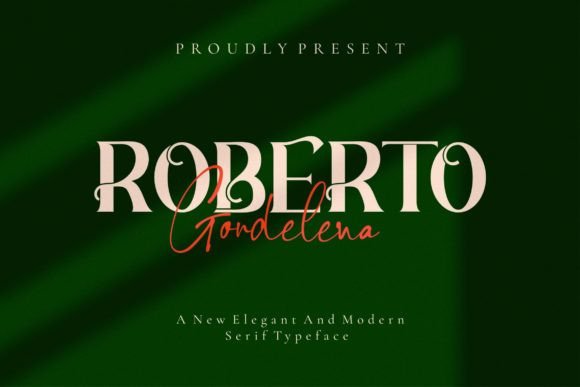
Introducing Roberto Gordelena Font, the epitome of elegance and style! This remarkable duo serif and script font is sure to captivate your imagination and elevate your designs to new heights. Created by the talented minds at zainstudio, this font is a true masterpiece that will leave a lasting impression on anyone who lays eyes on it.
Are you tired of mundane and ordinary fonts that fail to make a statement? Look no further, as Roberto Gordelena Font is here to revolutionize your design game. With its sleek and sophisticated design, this font will effortlessly add a touch of class to any project you are working on.
Whether you are creating stunning templates, eye-catching brochures, mesmerizing videos, or unforgettable advertising campaigns, Roberto Gordelena Font is your ultimate companion. Its versatility knows no bounds, making it the perfect choice for all your branding needs. Let your imagination run wild and watch as this font breathes life into your creations.
But what sets Roberto Gordelena Font apart from the rest? Its PUA encoding feature ensures easy access to all the glyphs and swashes, allowing you to unleash your creativity without any limitations. Explore a vast array of unique characters and decorative elements, and watch as your designs come to life with a touch of elegance and sophistication.
Embrace the minimalist revolution and let Roberto Gordelena Font be the driving force behind your success. With its sleek and modern design, this font is the perfect choice for those seeking a clean and contemporary look. Stand out from the crowd and leave a lasting impression on your audience with this remarkable font.